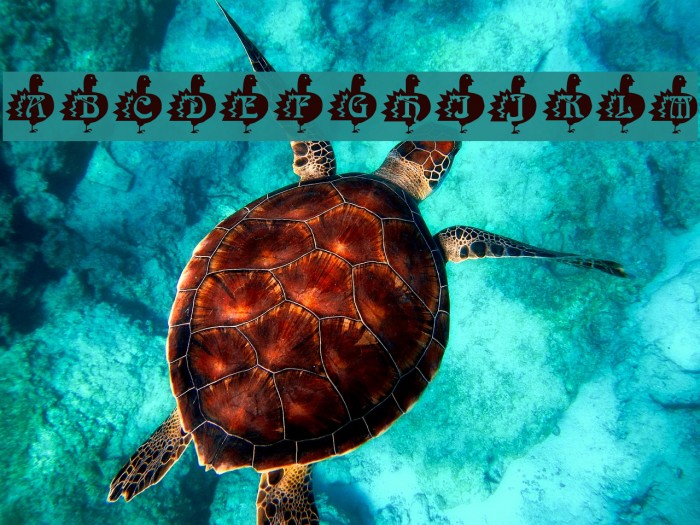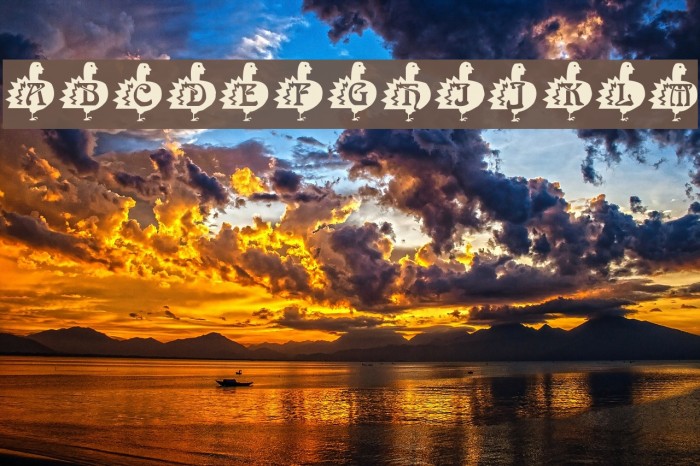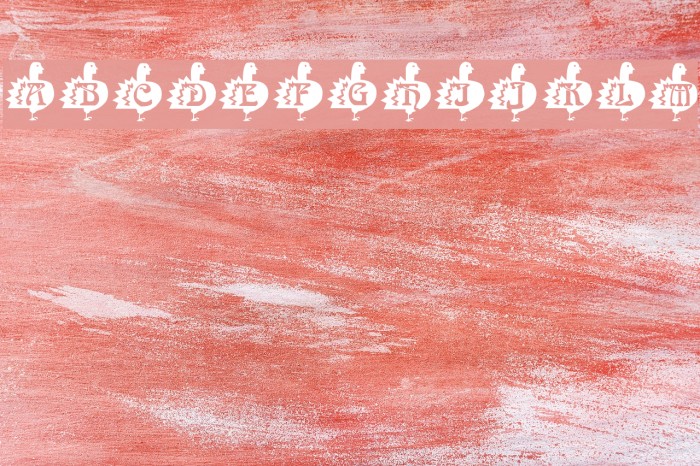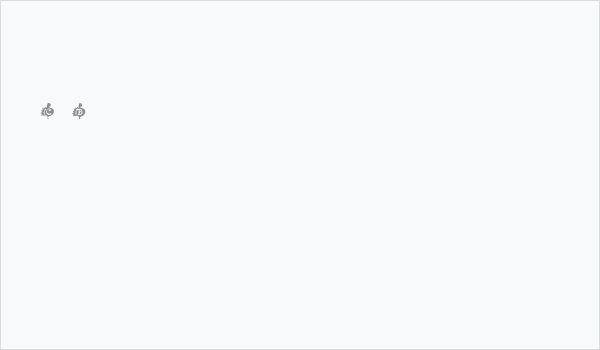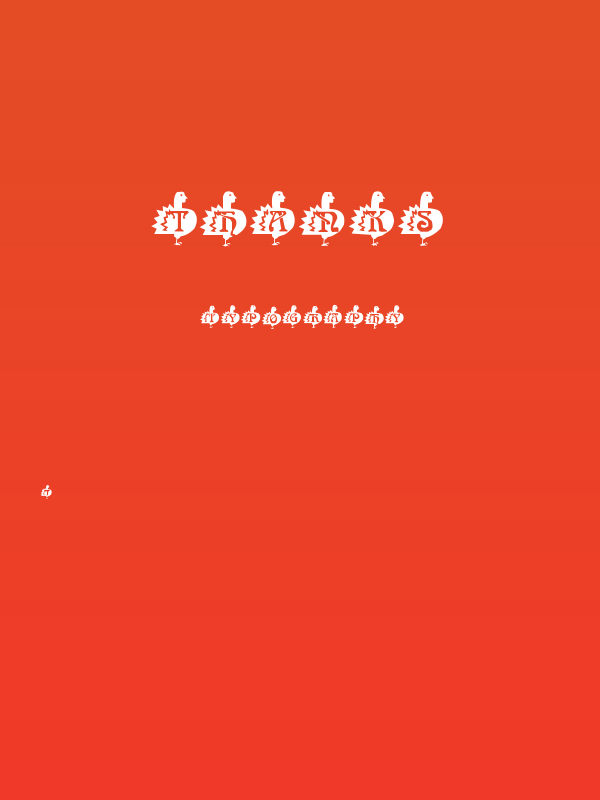
thanks1 Font
thanks1 Description
This playful and whimsical font features each character embedded within a stylized turkey silhouette, making it ideal for festive or themed projects. The letters are bold and clear, ensuring readability despite the intricate design. The font combines a decorative style with a touch of humor, perfect for Thanksgiving-themed materials or any project requiring a lighthearted touch. The turkey design adds a unique flair, making it stand out in any setting.
Use CaseHeadlines, Logos, Themed Events
Proposed ProjectsIdeal for Thanksgiving invitations, holiday cards, themed posters, and playful branding.